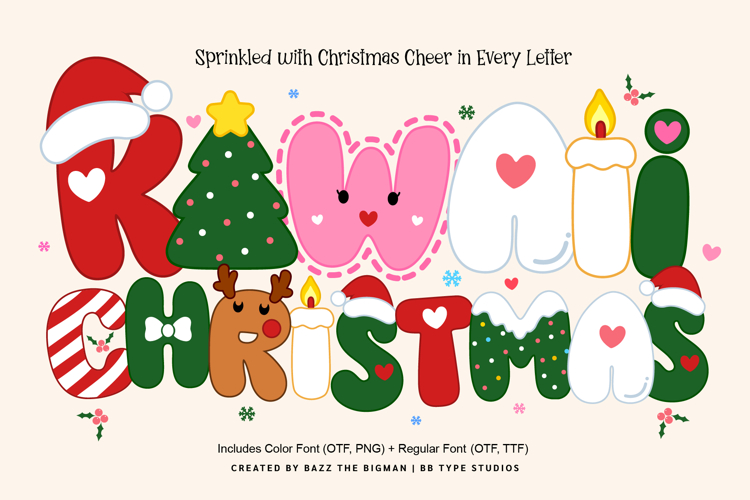
Bring festive joy to every project with Kawaii Christmas, a cute mixed-style decorative font inspired by Christmas magic! Each letter is uniquely designed with adorable holiday elements such as Santa hats, Christmas trees, candy canes, reindeer, ornaments, candles, hearts, and snowy details.
Perfect for creating eye-catching designs for Christmas crafts, Cricut projects, sublimation, t-shirts, mugs, greeting cards, stickers, planners, invitations, party decorations, classroom projects, and much more.
This Font includes both a colorful version for vibrant designs and a regular version that lets you customize colors to match your creative style.